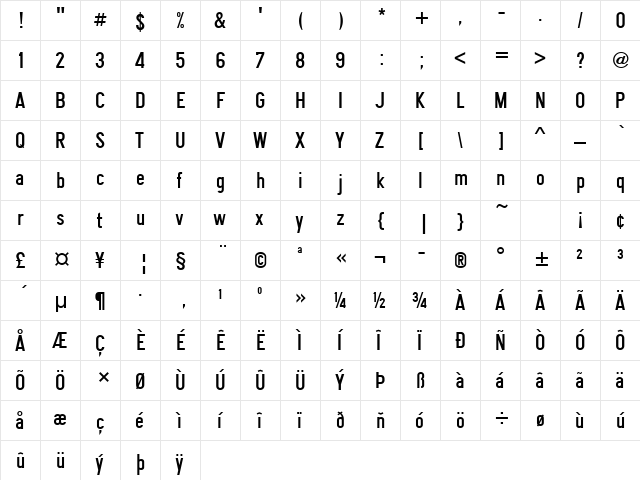
SnvDRegCon Regular
Design Context for SnvDRegCon Typeface
SnvDRegCon is a composed and adaptable typeface that performs quietly and consistently across a wide range of design contexts.